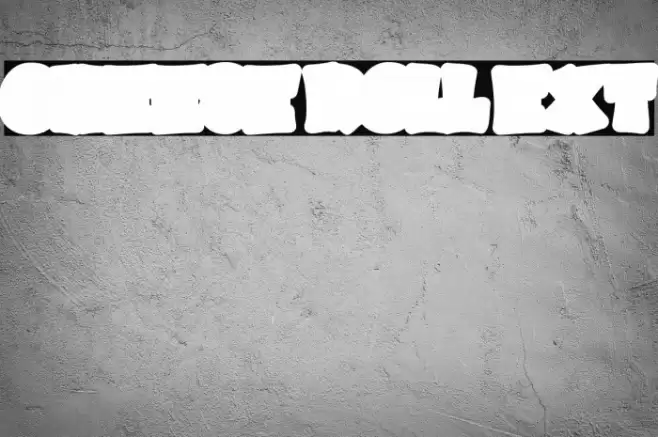
CHEESE ROLL EXT Font
CHEESE ROLL EXT Description
This font features a bold and playful style with exaggerated, rounded shapes that give it a cartoonish and fun appearance. The letters are heavily weighted, creating a strong visual impact. Each character is distinct with a slightly irregular outline, adding to its whimsical charm. The overall design is reminiscent of hand-drawn or graffiti-like lettering, making it ideal for creative and informal projects. The font's thick strokes and lack of sharp edges contribute to its friendly and approachable feel, making it suitable for a variety of playful and artistic applications.
A bold, playful font with rounded, cartoonish characters and a hand-drawn feel from Regular fonts.
- Proposed Projects: Ideal for children's books, comic strips, playful branding, posters, and party invitations.
- Overall Style: Playful, Cartoonish, Whimsical